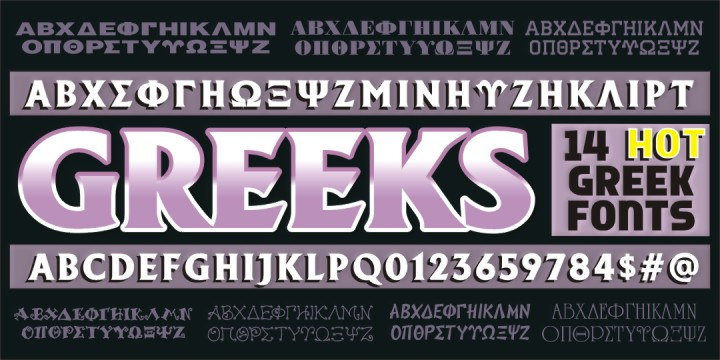
GREEK FONT SET 1
Greek Font Set 1 is a display and novelty font family. This typeface has seventeen styles and was published by The Fontry.
Greek alphabets for the fraternity and sorority set.
Now an amazing 17 fonts in one pack. Plus you don’t just get Greek characters. Romans get in on the act too. And numbers and punctuation—a full range of keyboard characters to see all of your layout needs done fast and done right. More…
Please note that this is not a Greek language font. The Greek Fonts #1 “Greek” range consists of only 24 uppercase Greek characters in the “uppercase” keyboard position. “Roman” characters can be found in the “lowercase” range. Numbers and punctuation can be found in standard keyboard positions.